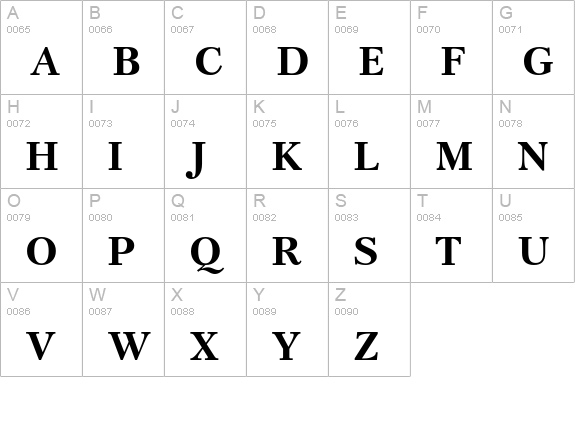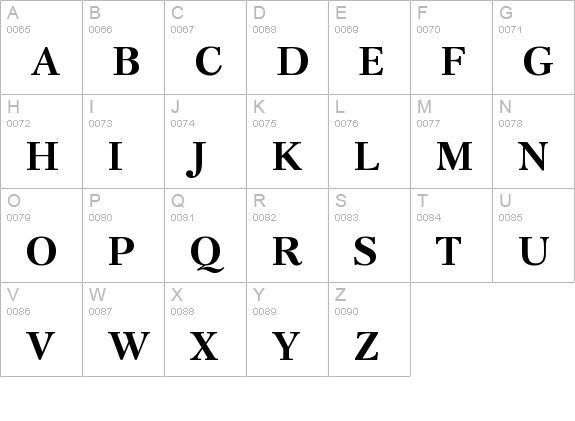
PetersburgITT Bold is a strong, high-contrast variant in the PetersburgITT typeface family \xE2\x80\x94 well suited to headlines, attention-grabbing titles, and strong calls-to-action.
PetersburgITT Bold is a striking and versatile font that exudes confidence and strength. Its bold and powerful strokes make it perfect for headlines, titles, and any design that demands attention. With its clean and modern aesthetic, PetersburgITT Bold adds a touch of sophistication to any project. What sets PetersburgITT Bold apart is not only its eye-catching design but also the fact that it is available for free. Yes, you read that right - this incredible font is freely available to download at FontsMarket.com. Whether you are a professional designer or a creative enthusiast, PetersburgITT Bold offers you the opportunity to enhance your work without any financial burden. So why wait? Head over to FontsMarket.com and download PetersburgITT Bold today. With its distinct style and the added bonus of being free, this font is a must-have for anyone looking to make a bold statement in their designs. Don't miss out on this incredible opportunity to elevate your typography game with PetersburgITT Bold.